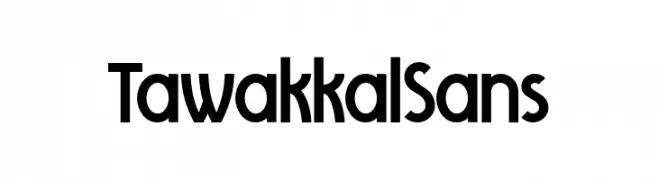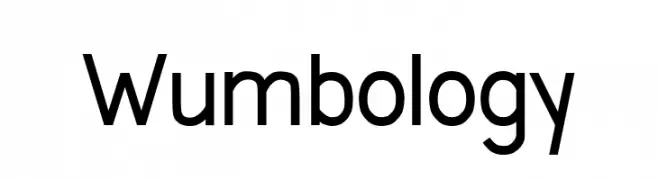
A thin, modern sans-serif font with a clean and elegant design.
A bold, modern sans-serif font with tall, narrow characters.
A classic serif font with high contrast and elegant, refined letterforms.
A bold, modern sans-serif font with a geometric and rounded style.
A modern, oblique font with bold, slightly condensed characters and medium contrast.
A sleek, modern italic font with bold, smooth curves.
A modern, geometric sans-serif font with clean lines and uniform strokes.
A sophisticated serif font with an elegant italic style and moderate contrast.
A bold, modern sans-serif font with a condensed and geometric style.
A modern, semi-bold sans-serif typeface with clean lines and balanced proportions.